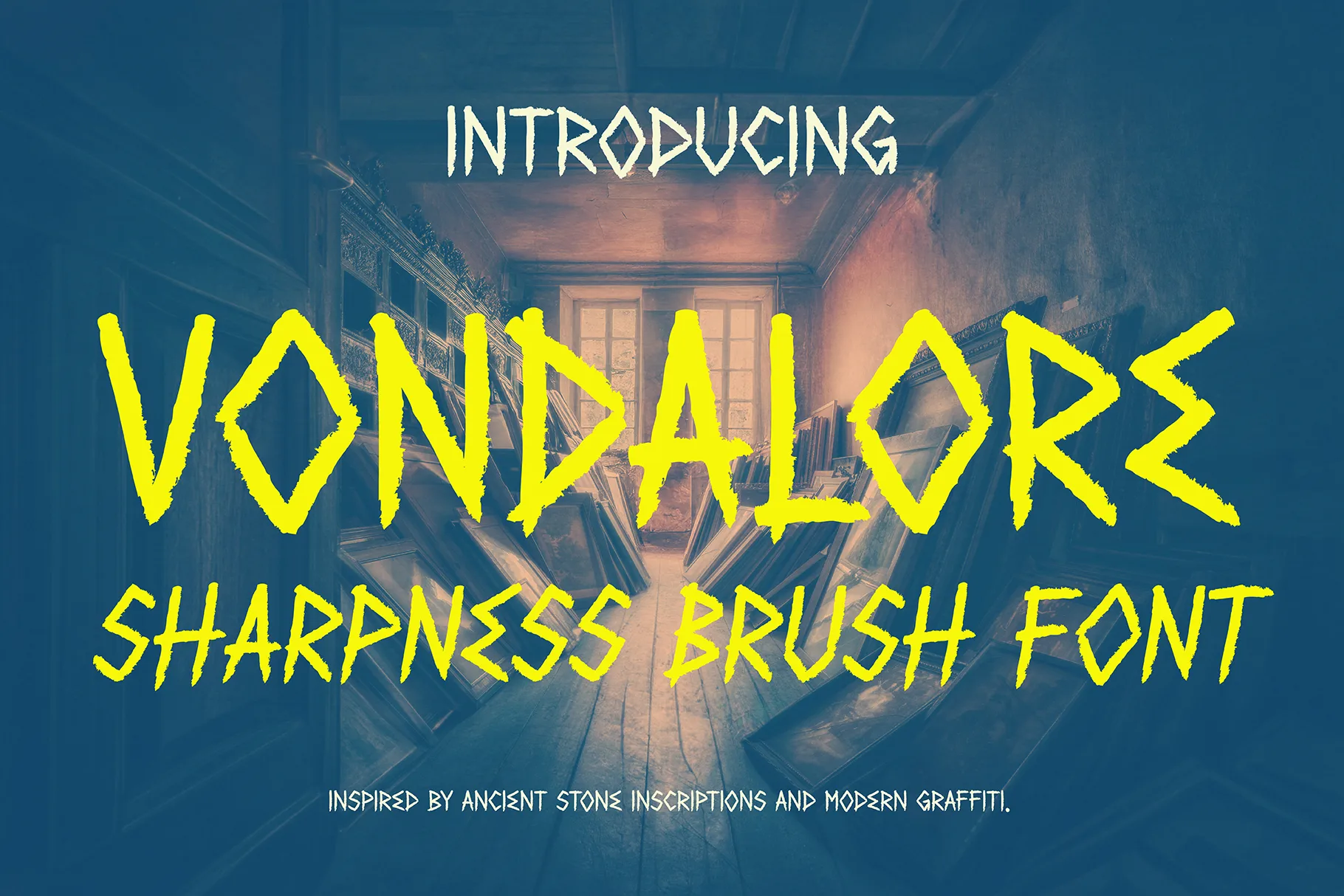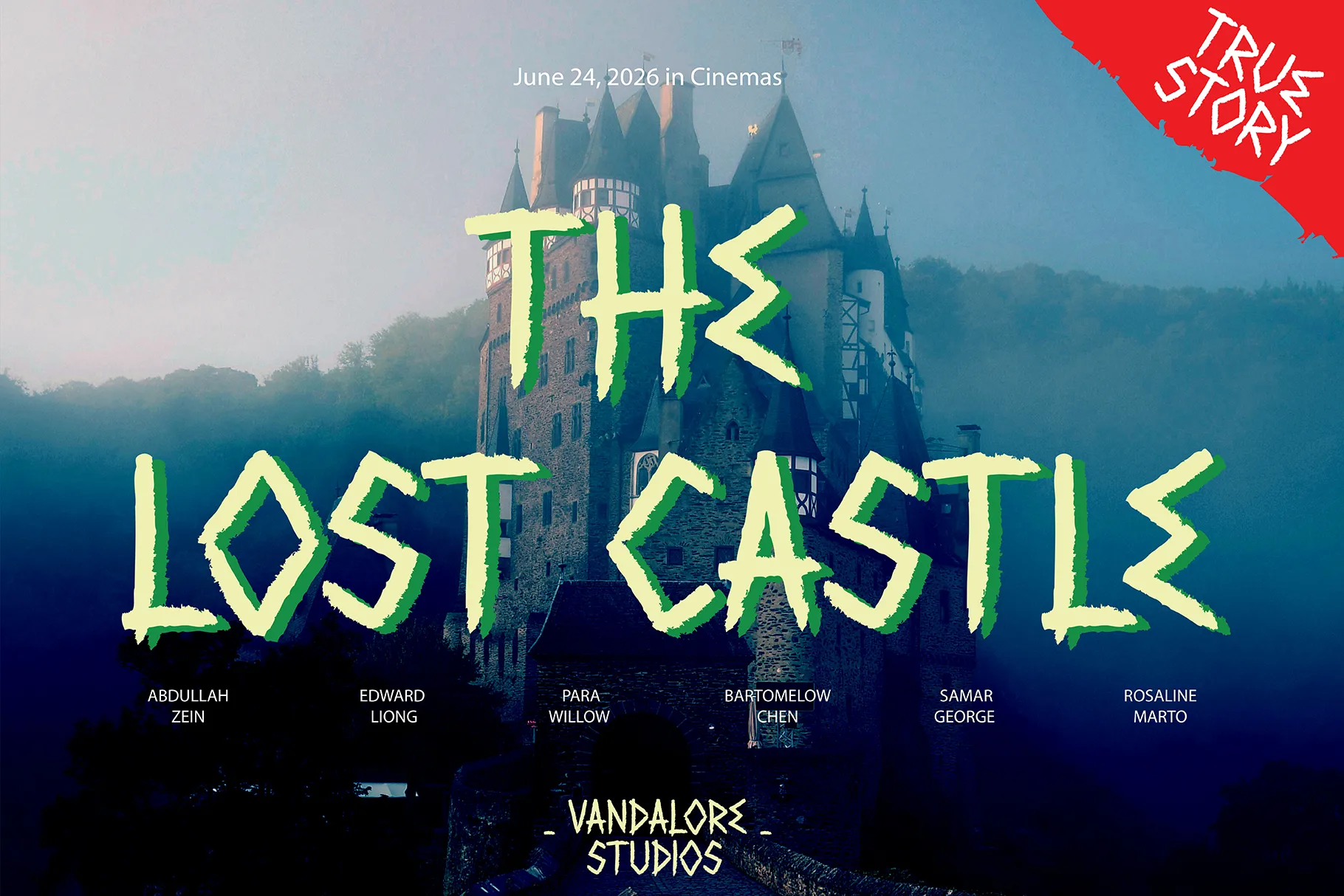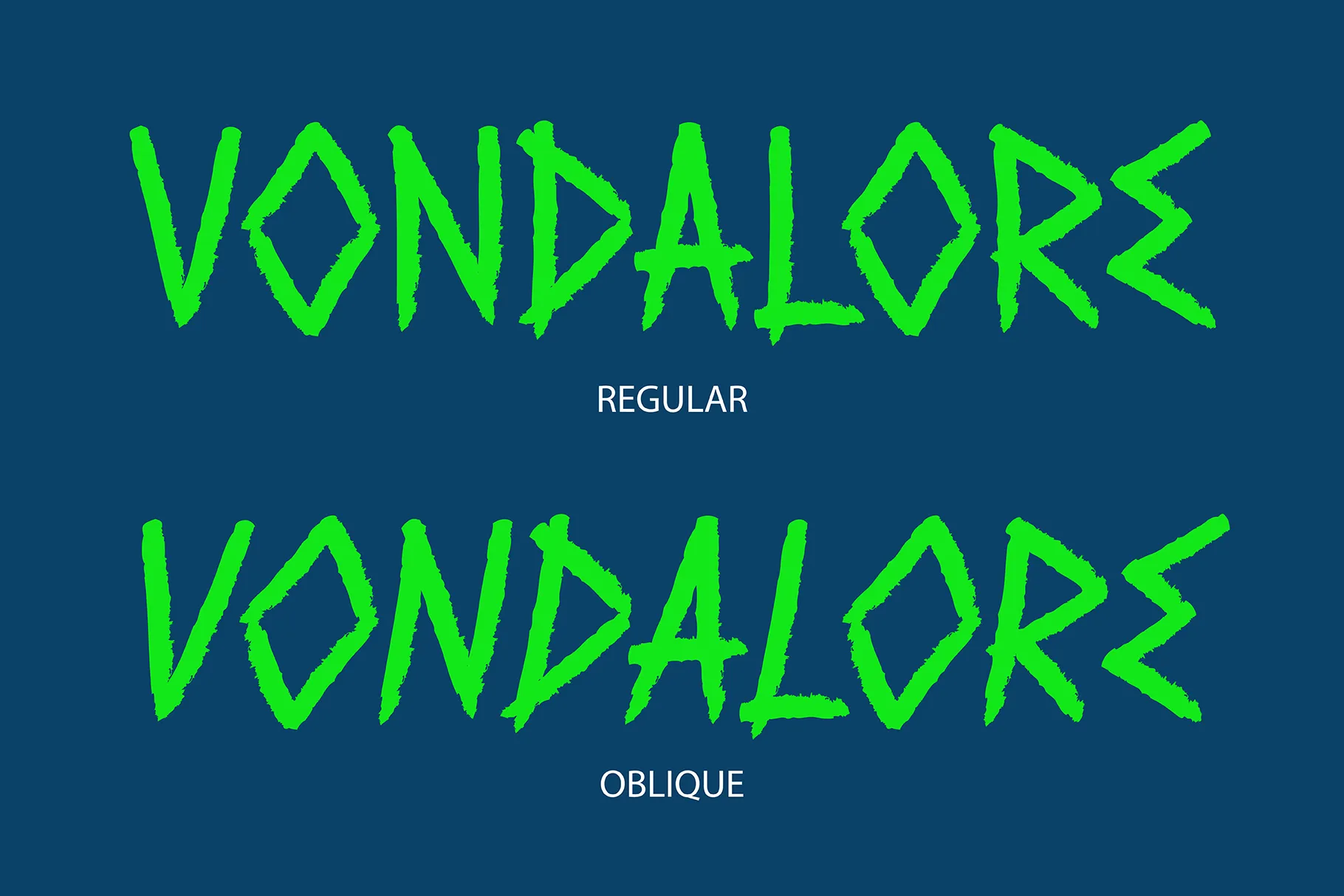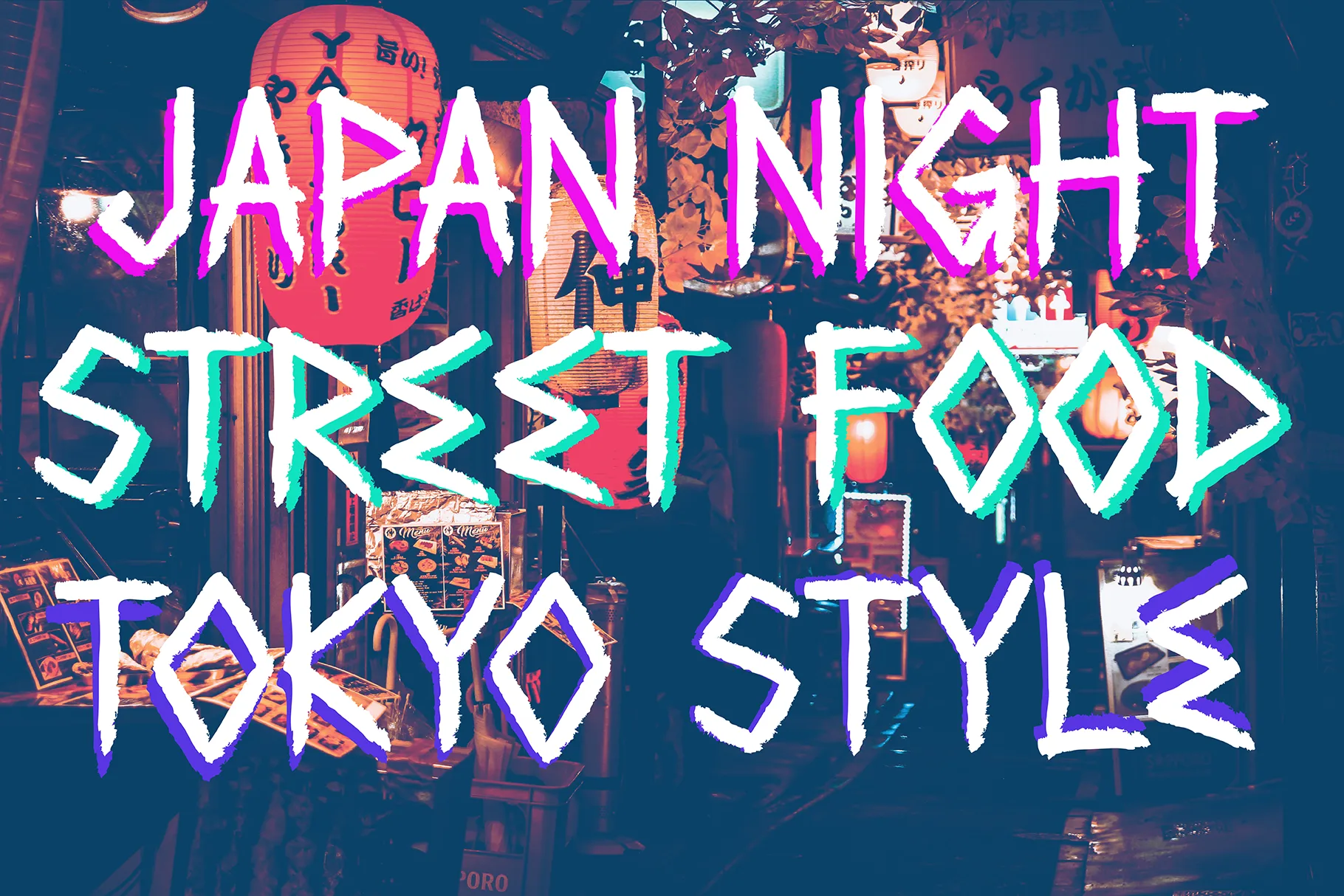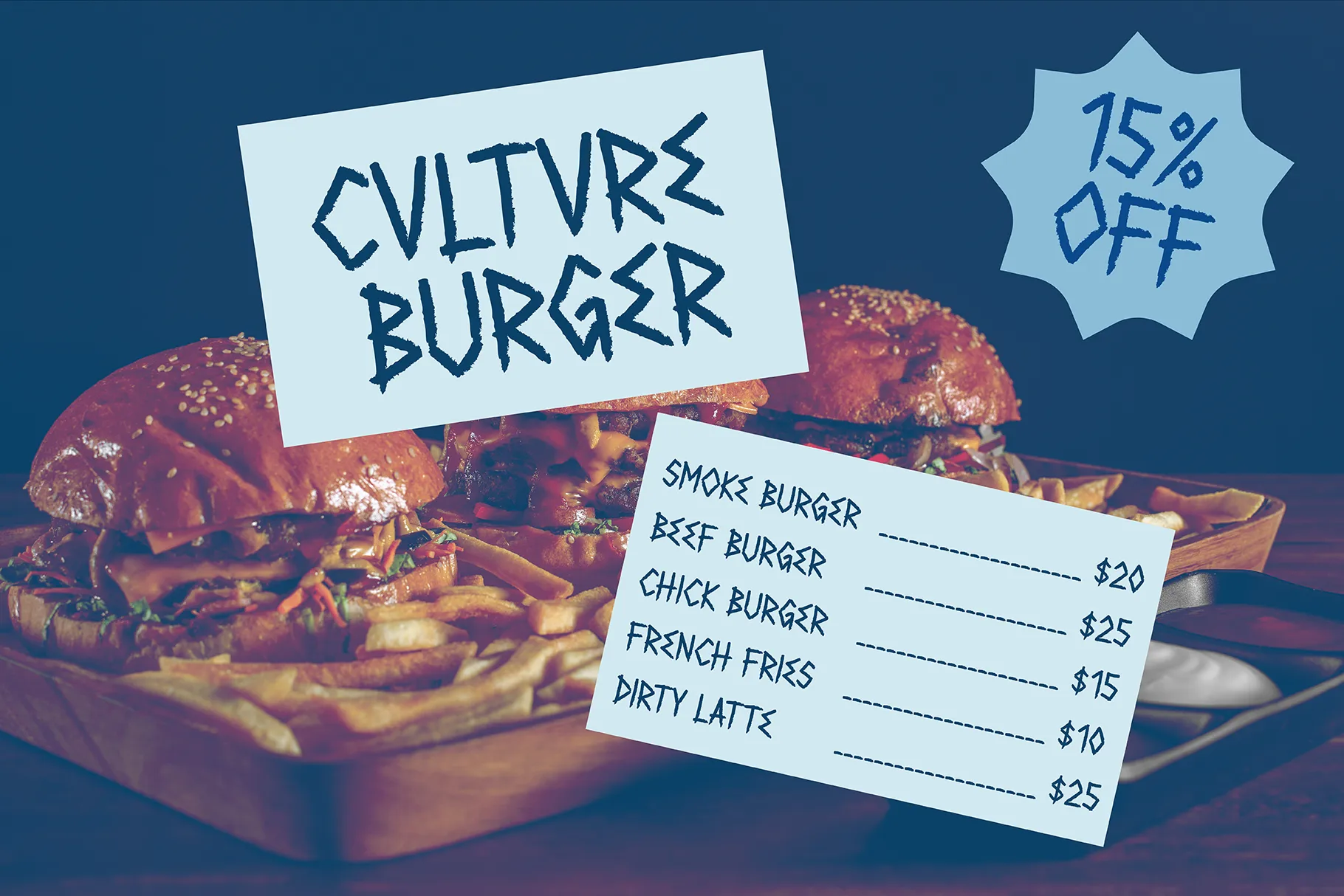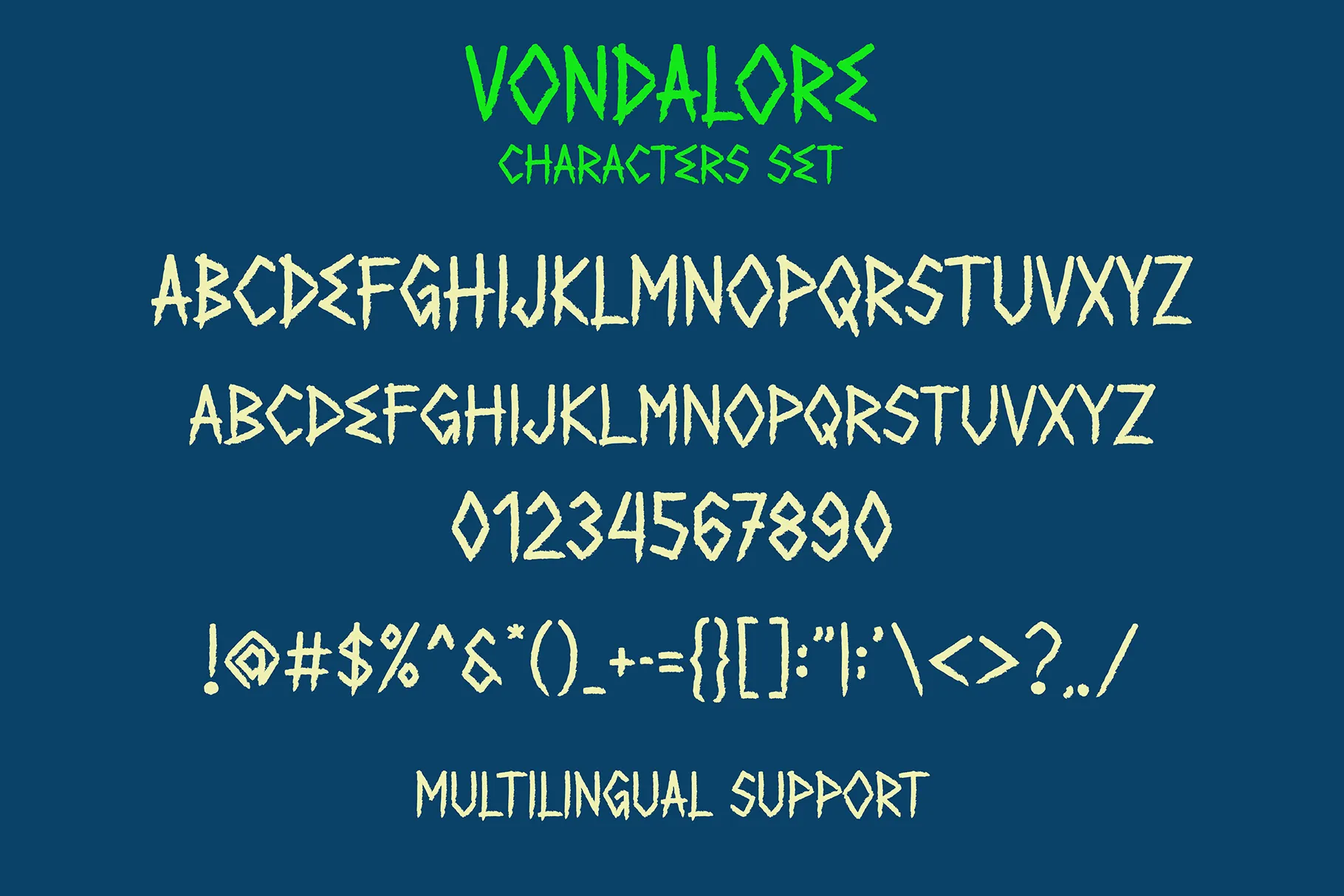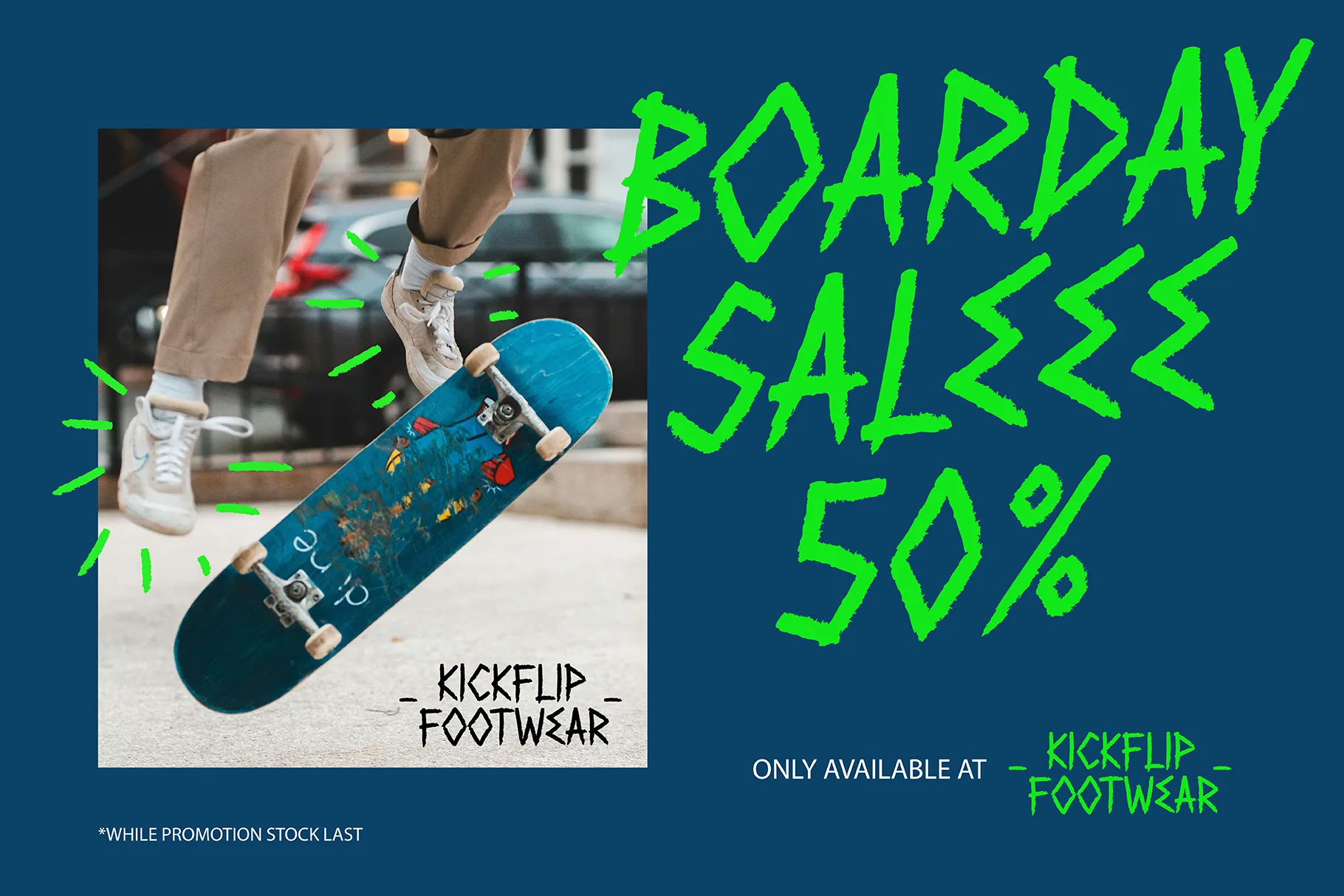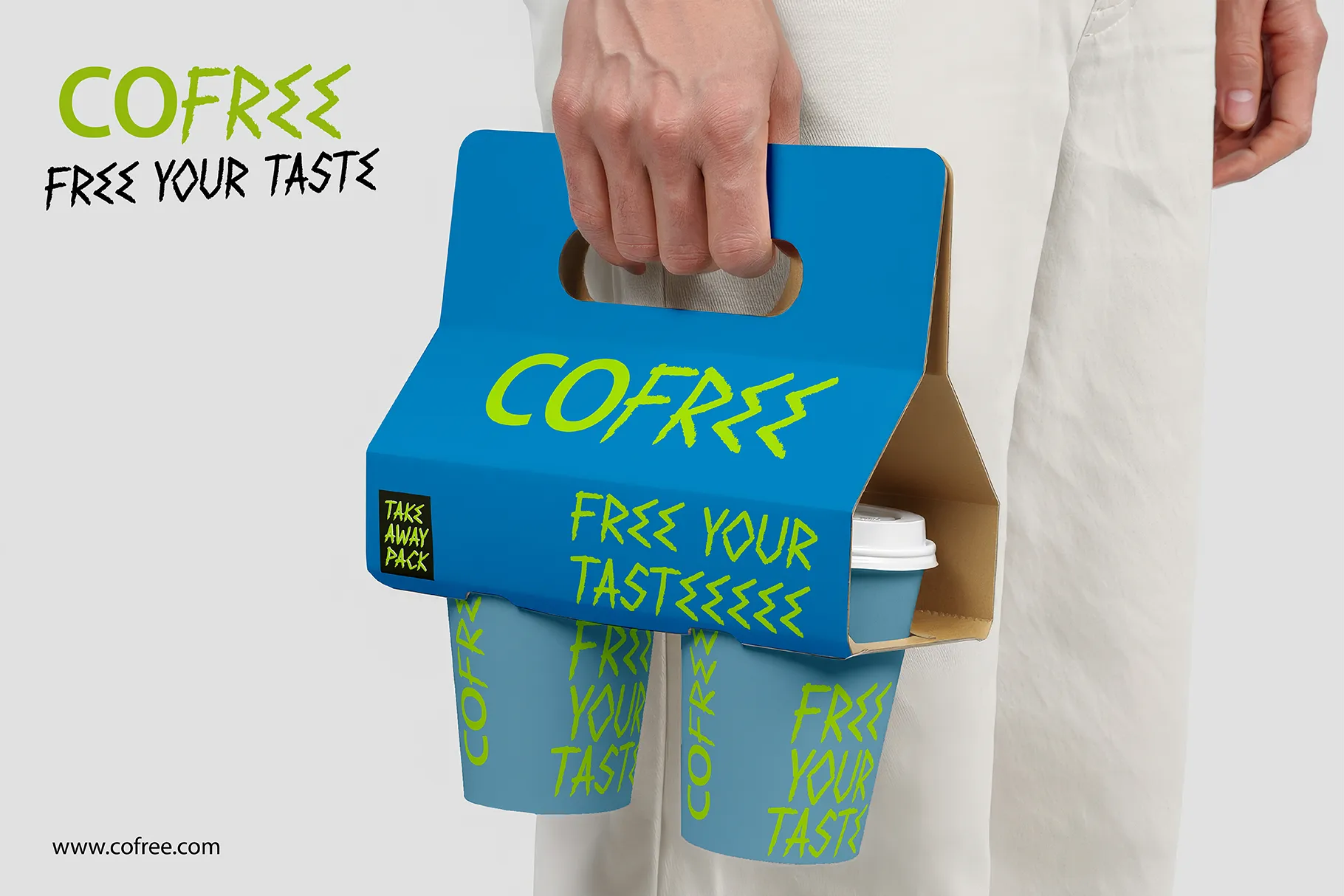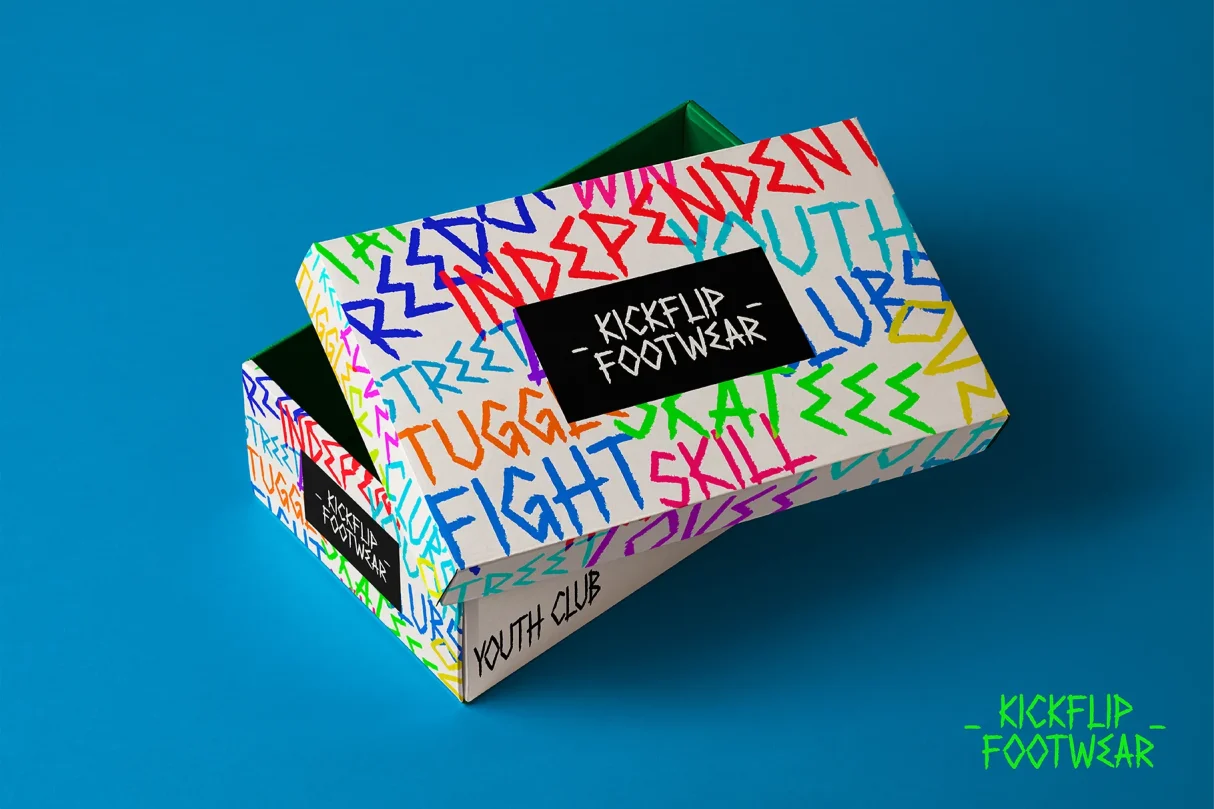
Vondalore
Vondalore Oblique
Vondalore Sharpness Brush Font is a bold and expressive display brush font that captures the raw energy of sharp, rigid strokes inspired by street graffiti culture and the primitive inscriptions of the stone age. This font blends rebellious urban expression with ancient, rough carving aestheticsโ€”resulting in a typeface that feels wild, free, youthful, and full of struggle.
Featuring aggressive curves and angular brush movements, Vondalore delivers a powerful visual impact. The authentic brush texture and visible hand-painted strokes give each letter a raw, realistic feel, making it perfect for designs that demand strong character and emotional intensity.
Vondalore comes in two styles: Regular and Oblique, offering flexibility for dynamic compositions. With multilingual support, this font is ready for global creative projects. Whether used for streetwear branding, music posters, album covers, sports visuals, graffiti-inspired artwork, or bold editorial headlines, Vondalore Sharpness Brush Font injects unstoppable youthful spirit into every design.
Unleash raw expression. Embrace chaos. Let your design fight back with Vondalore.
Key Features
• Sharp & rigid brush strokes with graffiti influence
• Inspired by street graffiti and ancient stone inscriptions
• Authentic hand-painted brush texture
• Two styles: Regular & Oblique
• Multilingual support
• Perfect for youthful, rebellious, and energetic designs
VT Vondalore Sharpness Brush Font
Designed by Lukman Hidayat
Vondalore Sharpness Brush Font is a bold and expressive display brush font that captures the raw energy of sharp, rigid strokes inspired by street graffiti culture and the primitive inscriptions of the stone age.